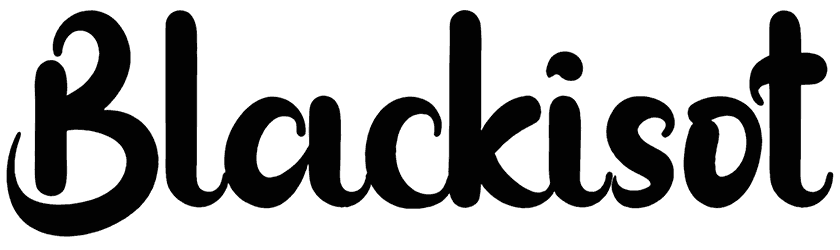
Blackisot Font
Blackisot is a script font that very well elicits an exclusive kind of delicacy, modernity, and approachability. Aside from not supporting numbers, this lovely masterpiece would look insanely perfect on any kind of visual content, including menus, magazines, branding, editorial projects, or blog posts. Just in case you require another font in the same category, don’t hesitate to visit our marvelous collection.